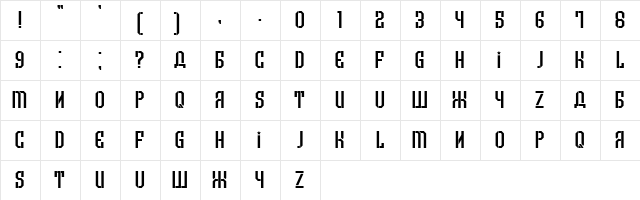
Armenia Regular Font Preview
Armenia Regular
Design Context for Armenia Typeface
Armenia is a composed and adaptable typeface that performs quietly and consistently across a wide range of design contexts.